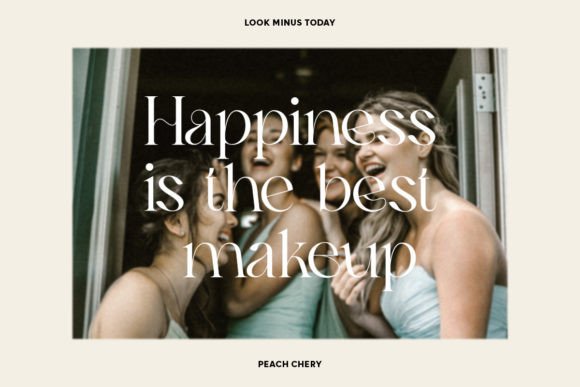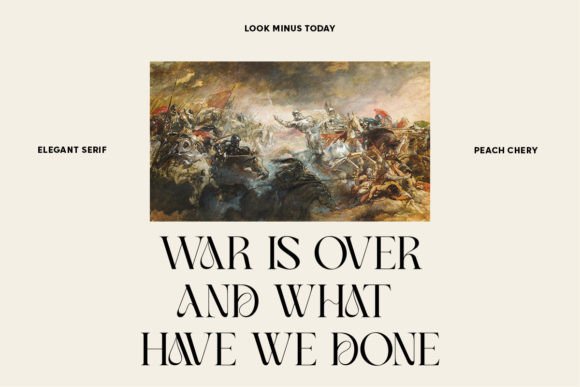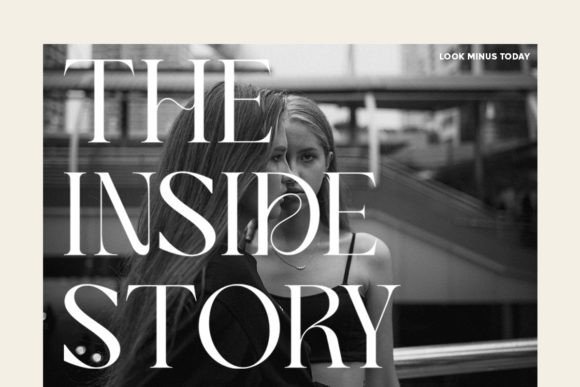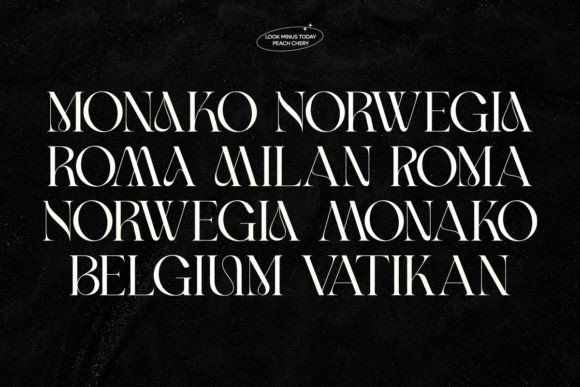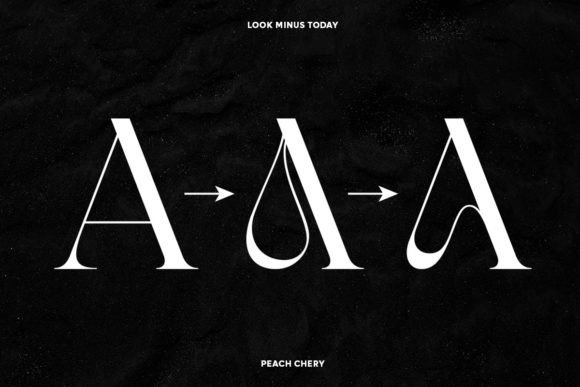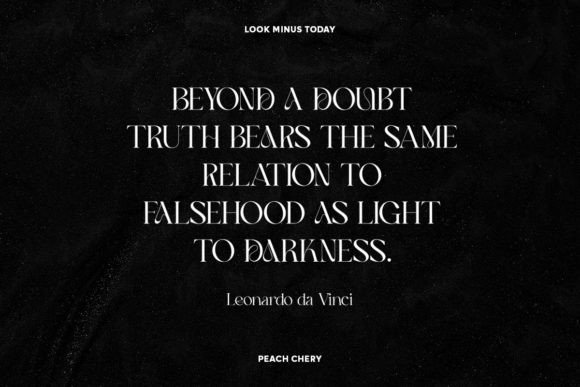
Introduction to Peach Chery Font Font
Fonts play a crucial role in design, and the Peach Chery Font font is a typeface that brings both character and versatility to any project. Whether you’re working on a branding project, a website, or a print design, the Peach Chery Font font offers a unique style that can elevate your work.
Peach Chery is an elegant serif font that is perfect for adding a touch of sophistication to your designs.
Its sleek and stylish look makes it suitable for a variety of applications, including branding, advertising, and editorial design Whether youβre creating print materials or digital designs, this font is sure to add a touch of luxury and refinement to your work.
Key Features of Peach Chery Font Font
Why Choose Peach Chery Font Font?
The Peach Chery Font font is more than just a typeface β it’s a design tool that helps you communicate your message with style and clarity. Its unique character set and versatile design make it suitable for a wide range of applications, from elegant invitations to bold headlines.
With its carefully crafted letterforms and balanced proportions, the Peach Chery Font font ensures readability and visual appeal across all mediums.
What makes Peach Chery Font font special?
The Peach Chery Font font stands out with its unique design, exceptional readability, and versatility across various design applications.